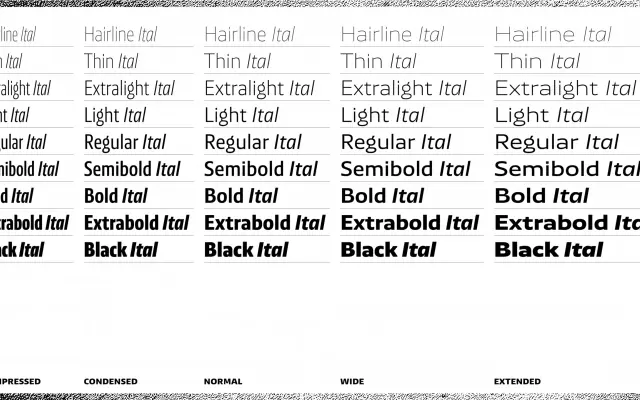
NewsSans
Character Type · Henning Skibbe
A 90-style sans-serif system by Henning Skibbe spanning five widths, built for editorial and corporate design at both display and text sizes.
Designed by Henning Skibbe for Character Type, NewsSans runs from Hairline to Black across Compressed, Condensed, Normal, Wide and Extended widths, giving designers a wide tonal range from delicate hairlines to heavy display weights. The family is screen-hinted for reliable on-screen performance and ships with over 700 glyphs alongside an extensive OpenType feature set including small caps, oldstyle figures, tabular figures and arrows. Its breadth of styles makes it viable for newspaper and magazine systems where a single typeface must cover headlines, captions and body copy simultaneously.
NewsSans is a multi-width sans-serif system with a neutral, functional character suited to editorial and corporate work, consistent with a grotesque or news grotesque tradition given its name and application range.